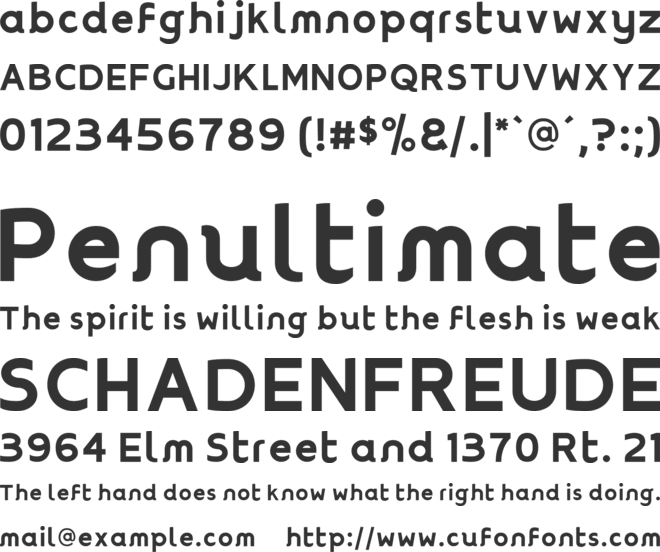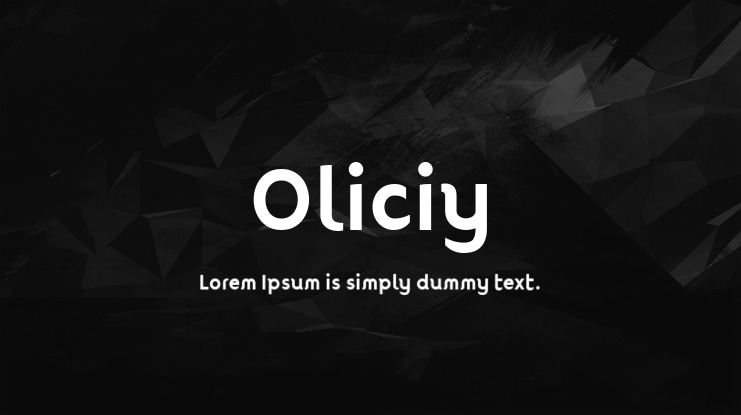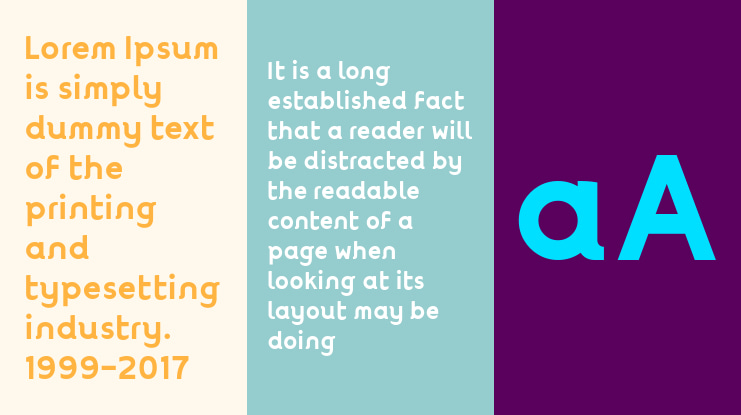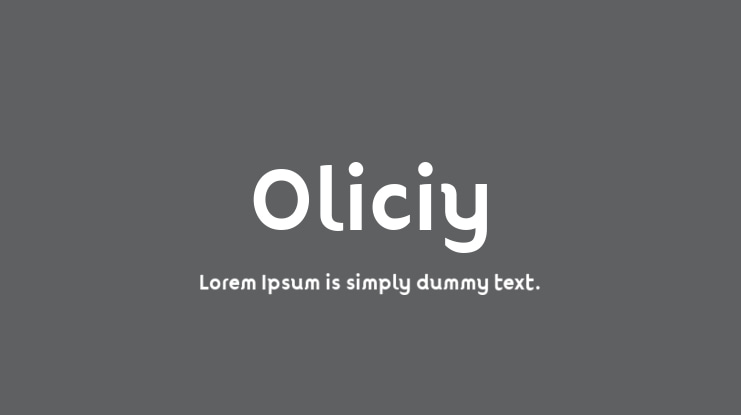
Oliciy Font
Luis Jaramillo
From an adventure, a friendship and a world where you express yourself as you want,
it occurs to me to bring a tribute to reality.
Oliciy is a modern sans serif typeface with a fun and enjoyable style.